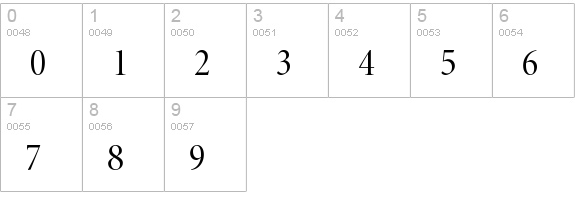
Minion Pro Cond Display is a distinctive, condensed-width variant in the Minion typeface family \xE2\x80\x94 well suited to design and typography projects.
Minion Pro Cond Display font is a sophisticated and elegant typeface designed to make a bold statement. Its condensed form adds a touch of modernity while maintaining the classic charm of the original Minion Pro font family. The tall x-height and slender serifs give this font a refined and professional look, perfect for a wide range of design projects. What sets Minion Pro Cond Display font apart is not only its exceptional design but also the fact that it is available for free download at FontsMarket.com. This means that you can access this high-quality font without any cost, making it a valuable addition to your font collection. Whether you're working on branding materials, editorial layouts, or any other creative project, Minion Pro Cond Display font is sure to elevate your designs with its timeless appeal and versatility.